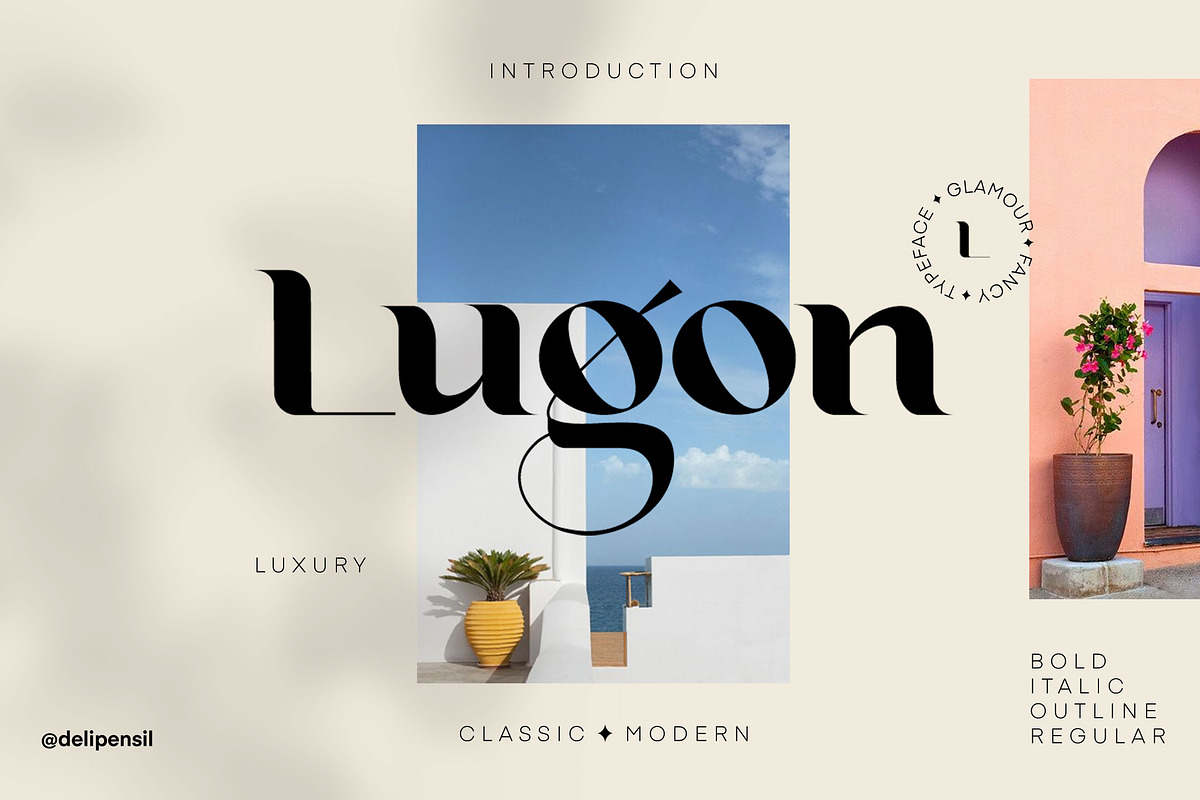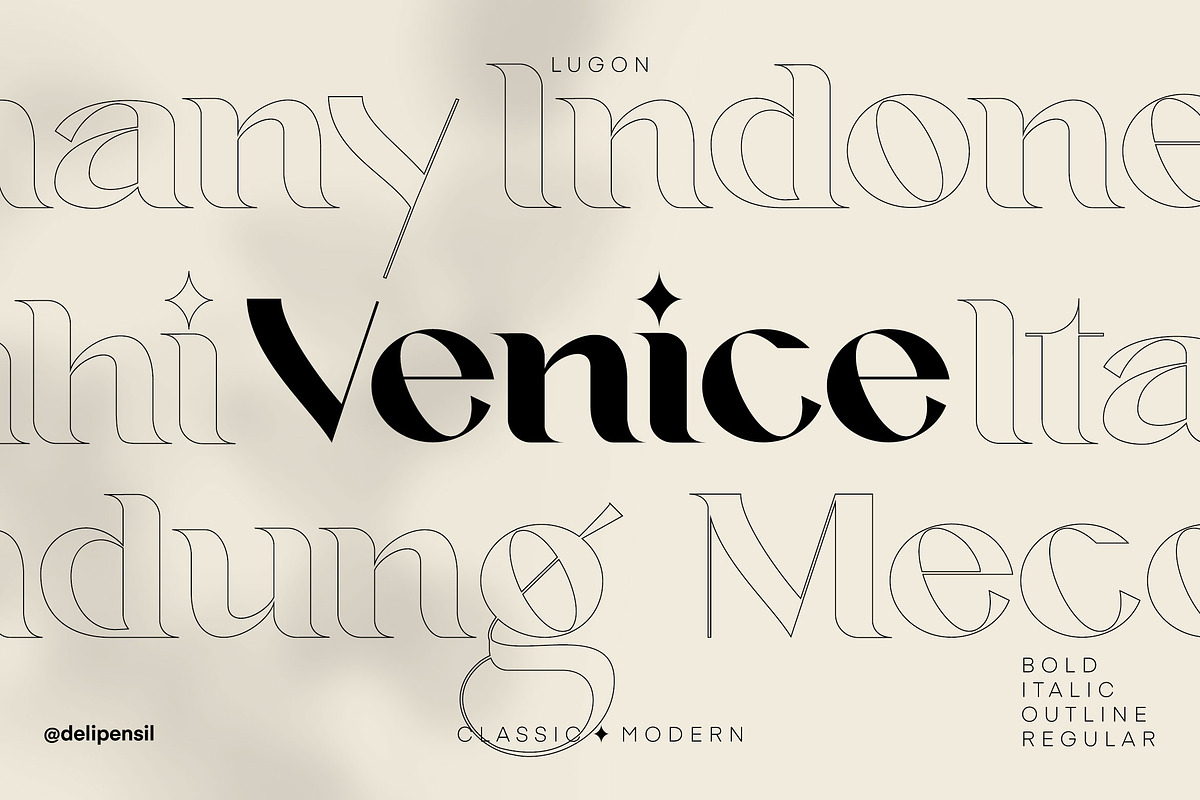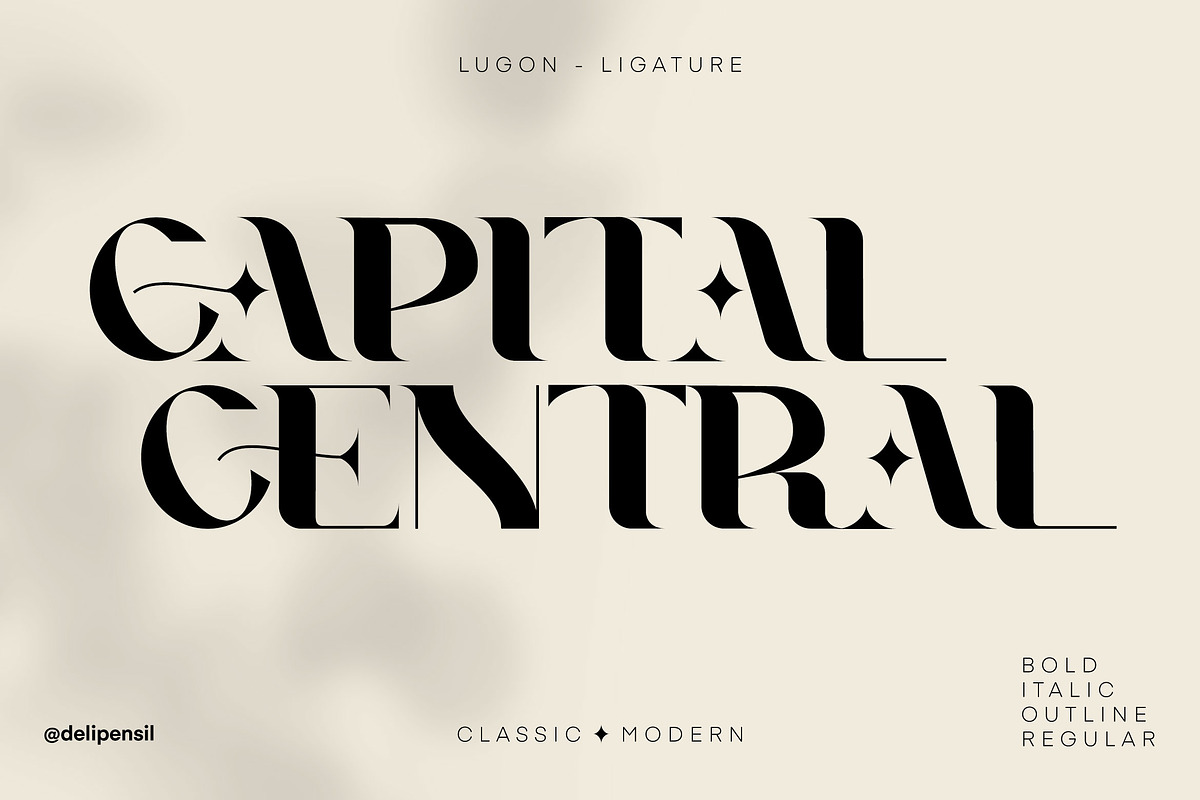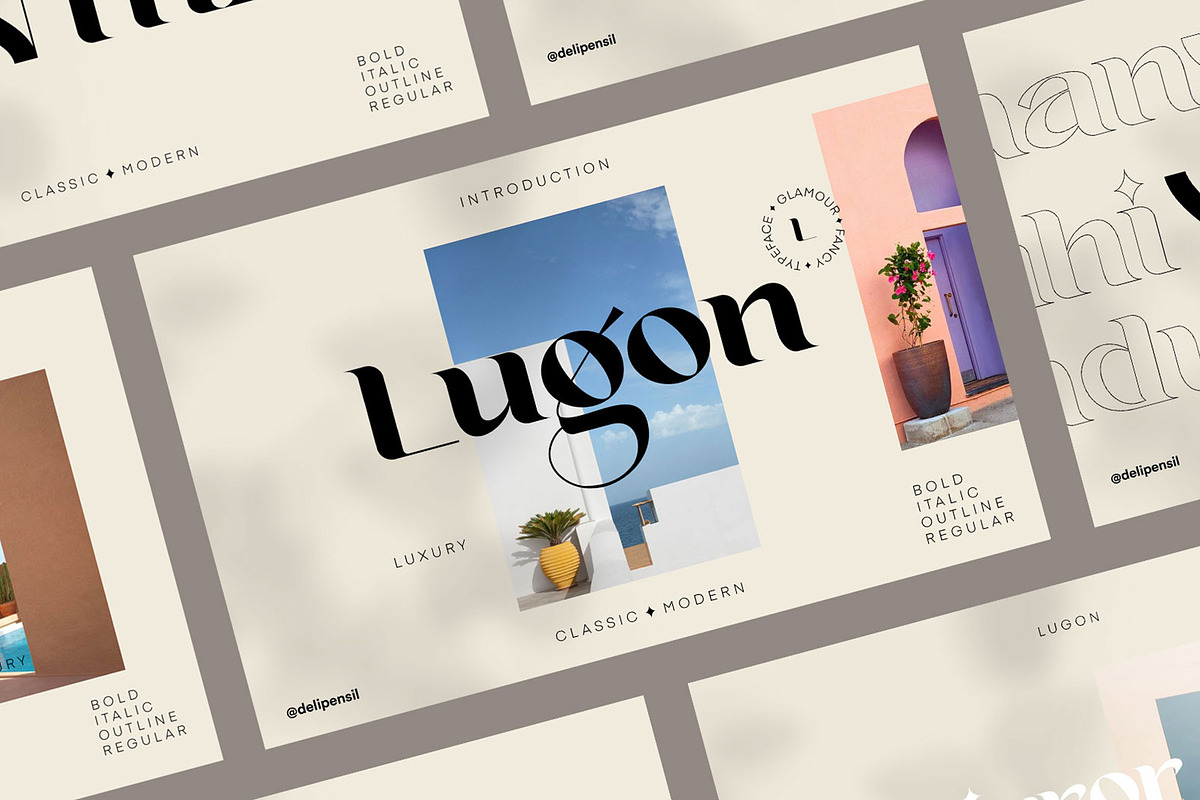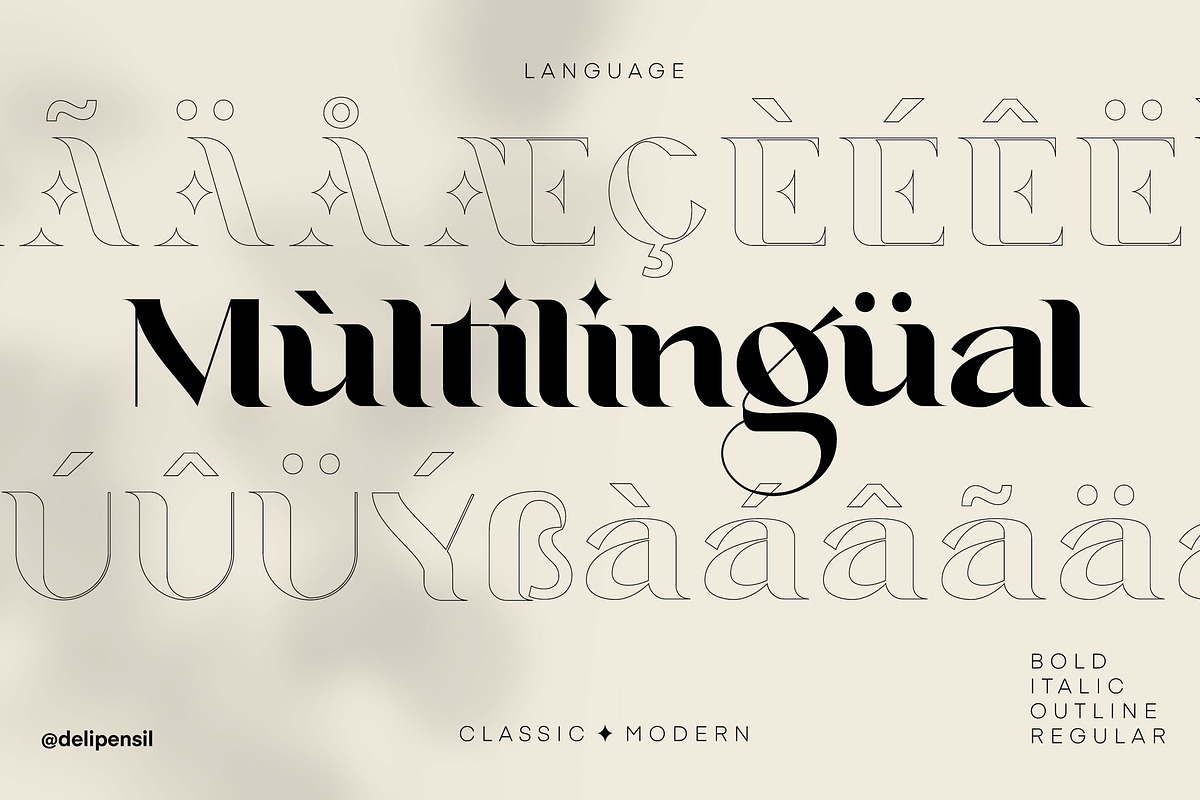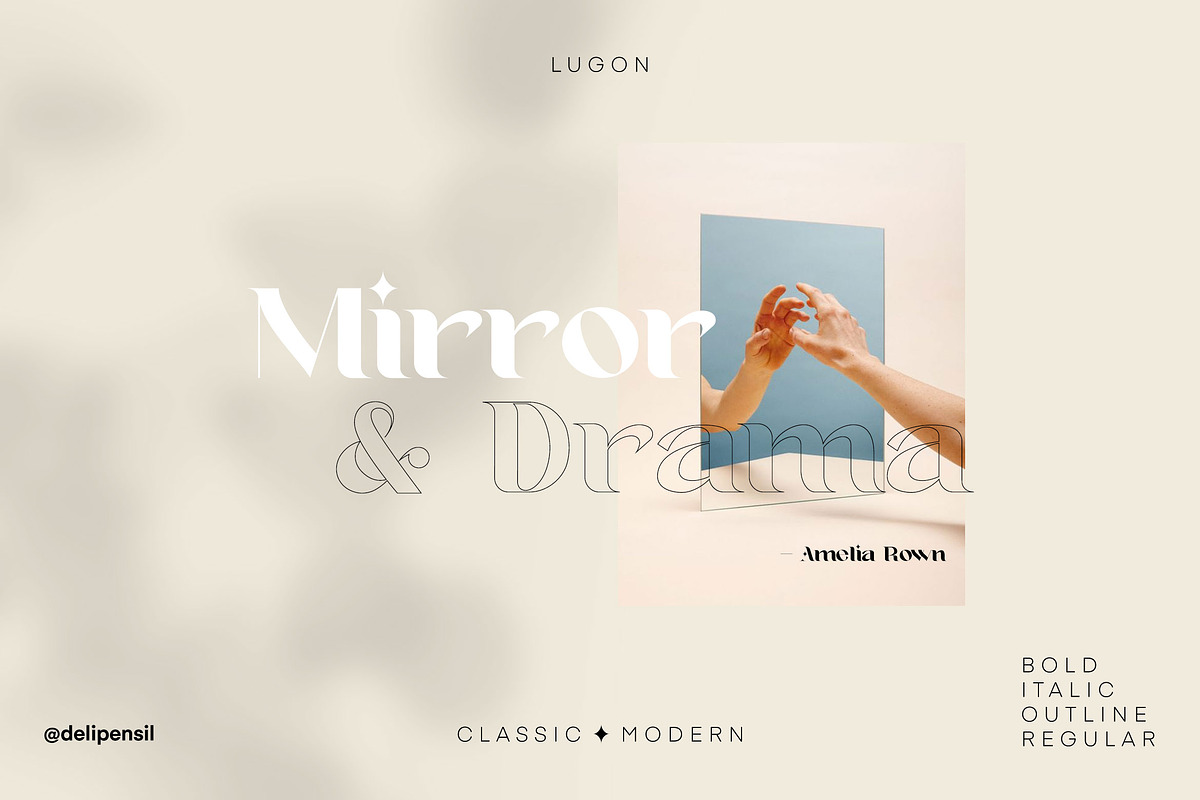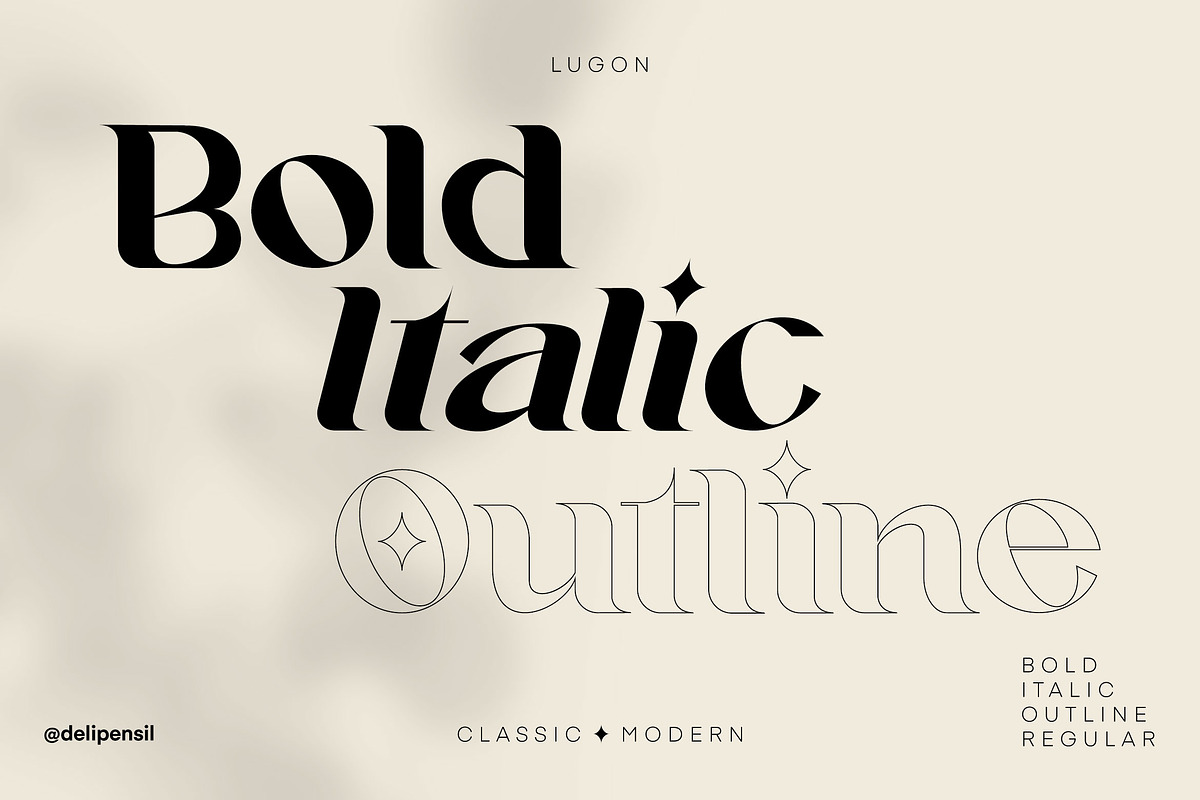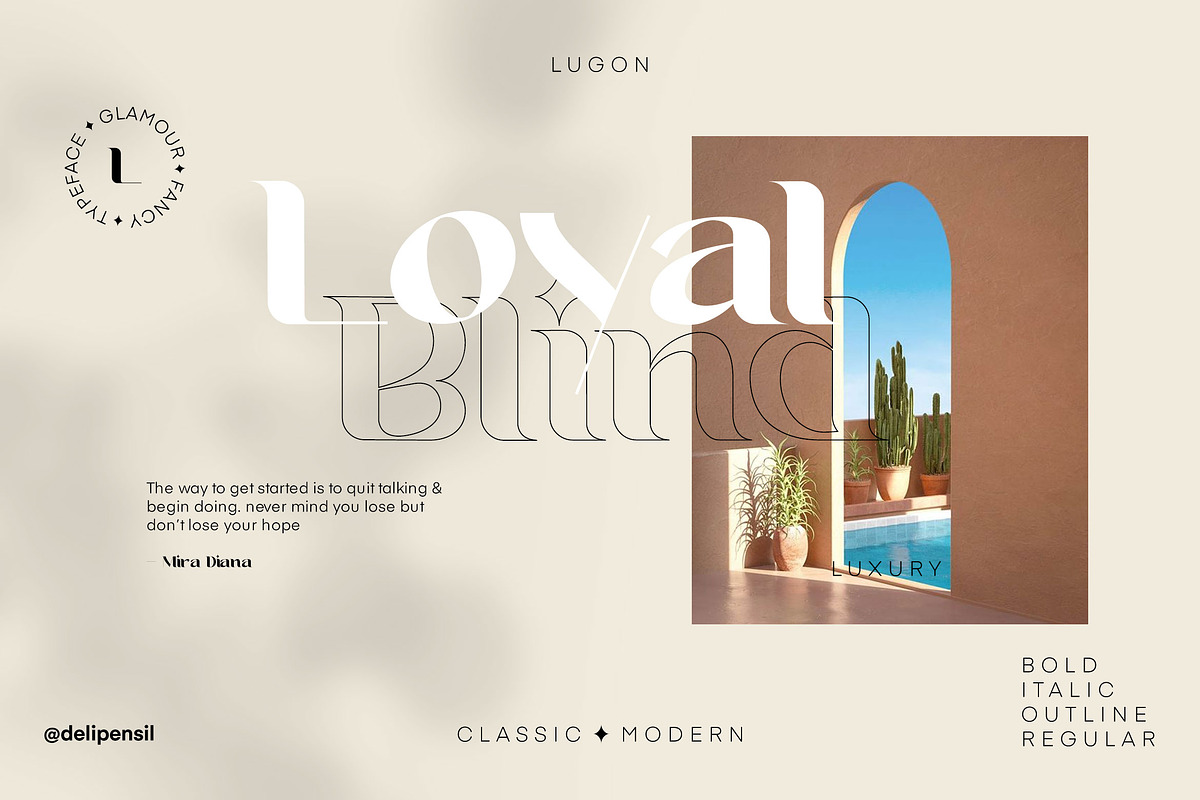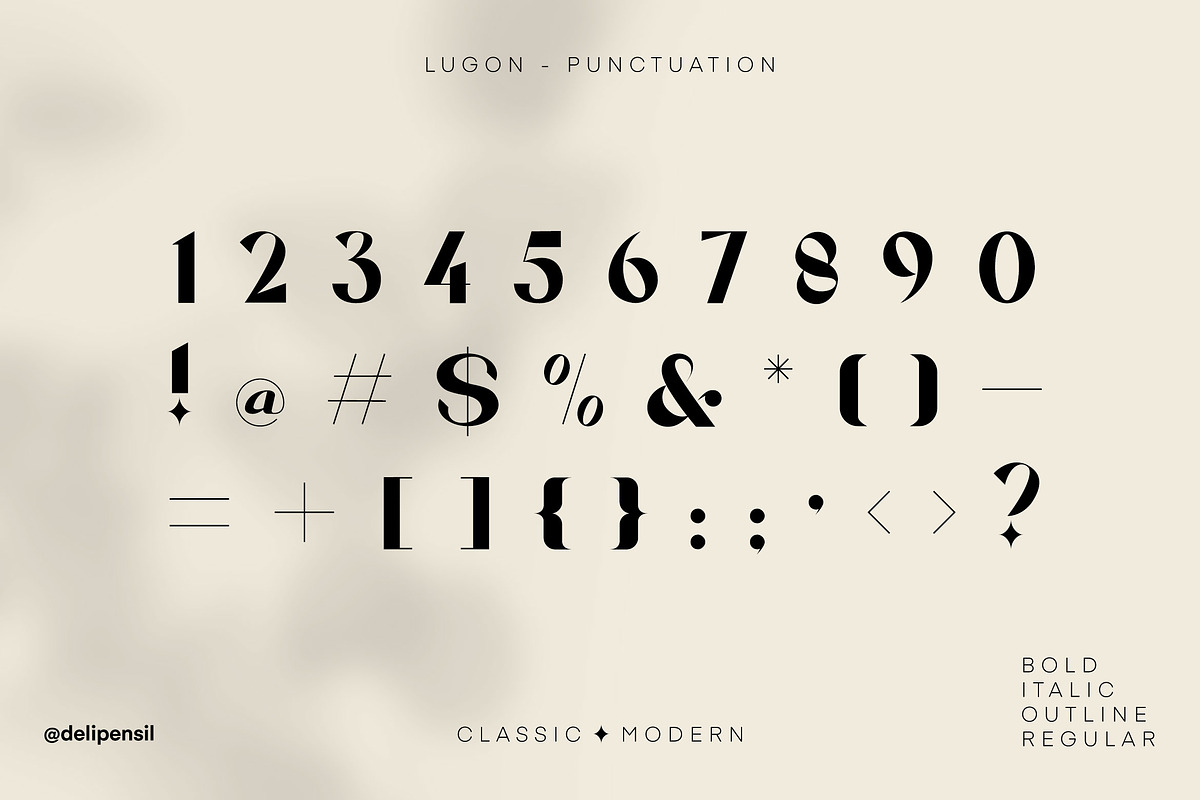
Lugon Classic Modern Typeface
Bismillah, Introduction Lugon - A Beatiful Classic Modern Typeface
Beauty Serif font, clean and mindful , it combine in one font, use this font for anything beauty place for your logo, headline, cover book, magazine and many more
- Lugon Font Style
- Lugon Numeral & Punctuation
- Lugon Kerning Style
- Lugon Swash Style